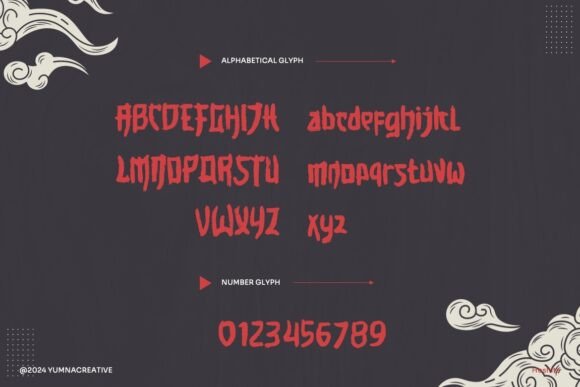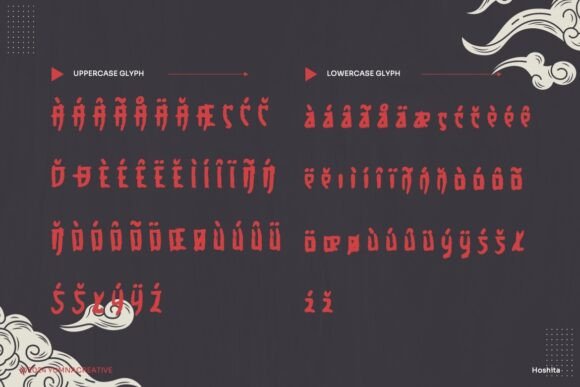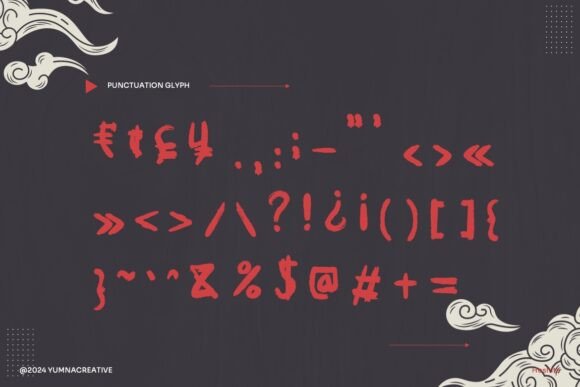
Introduction to Hoshita Font
Hoshita – Textured Brush is a painting tool designed to create unique, textured effects on your artwork.
It has a special surface that adds depth and detail, making your strokes look more dynamic and interesting Perfect for artists who want to add a creative touch to their paintings.